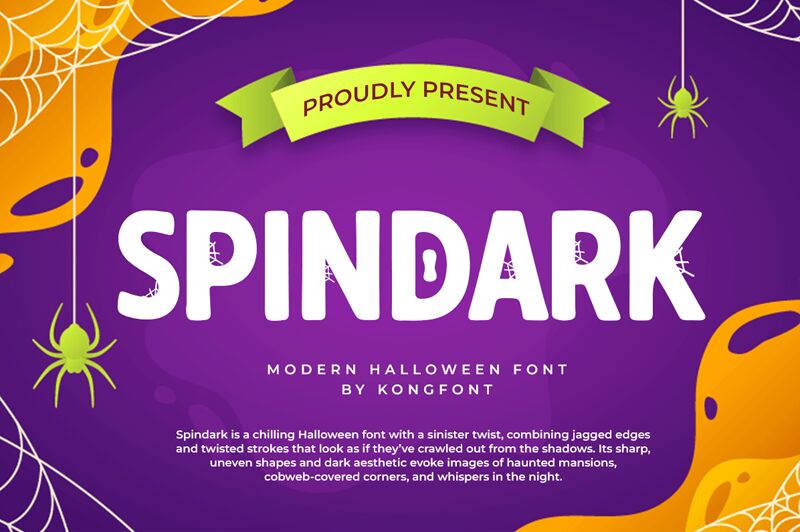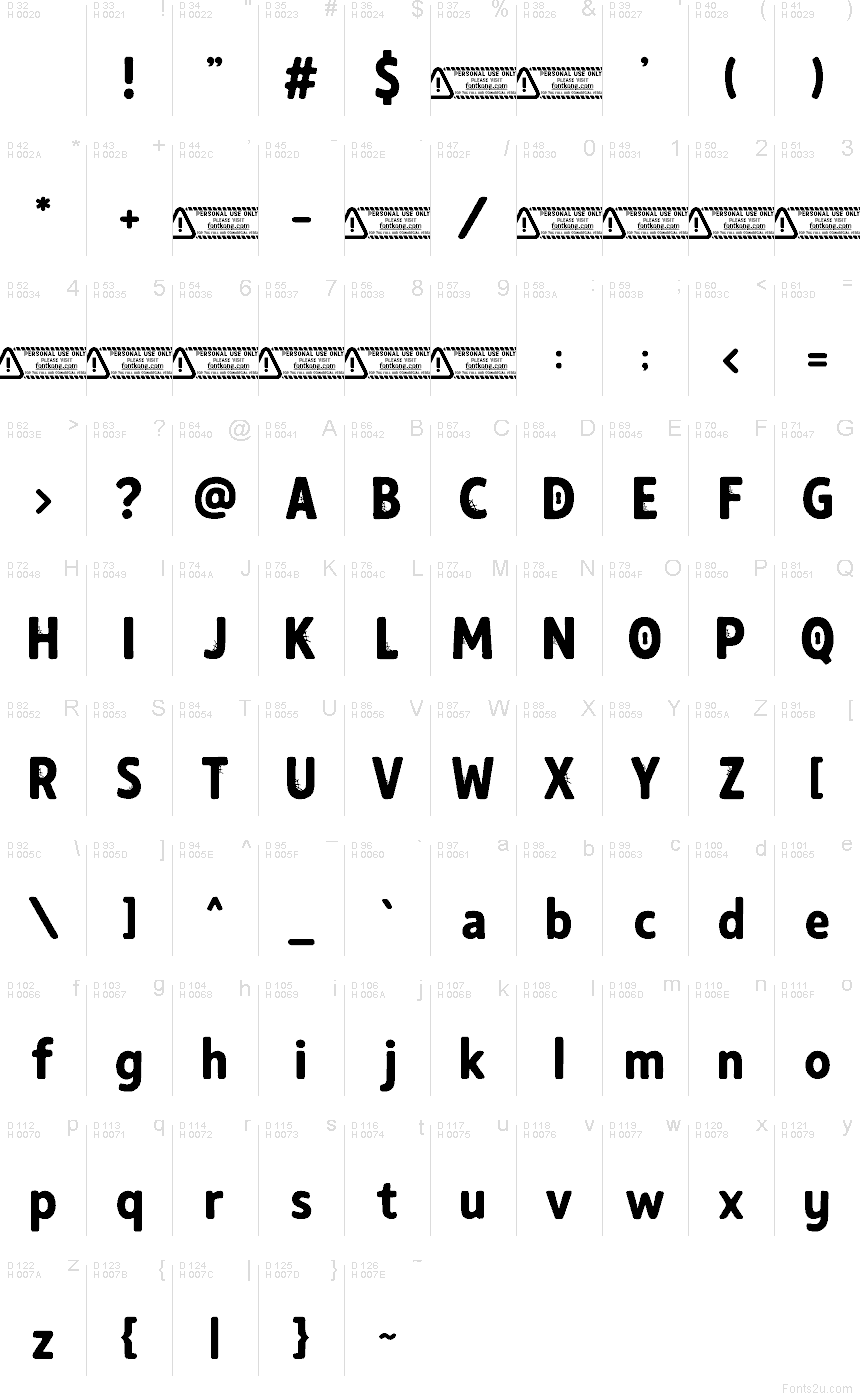
Spindark font by Kong Font is a free Halloween font with chunky, inky letterforms that feel like they were stamped in the dark and left to dry rough. The edges wobble just enough to look alive, while the tight, weighty shapes keep it loud and readable. It’s got that grimy, midnight-poster energy—bold, blunt, and a little unsettling.
Using Spindark on haunted house flyers, horror movie titles, spooky party invites, pumpkin patch signage, gaming stream overlays, Halloween sticker packs, or eerie merch graphics gives your words instant bite. Set it big with a touch of extra spacing so the dark texture can breathe, then pair it with a clean sans for dates and details. This free font works best when you let its heavy silhouette do the scaring.